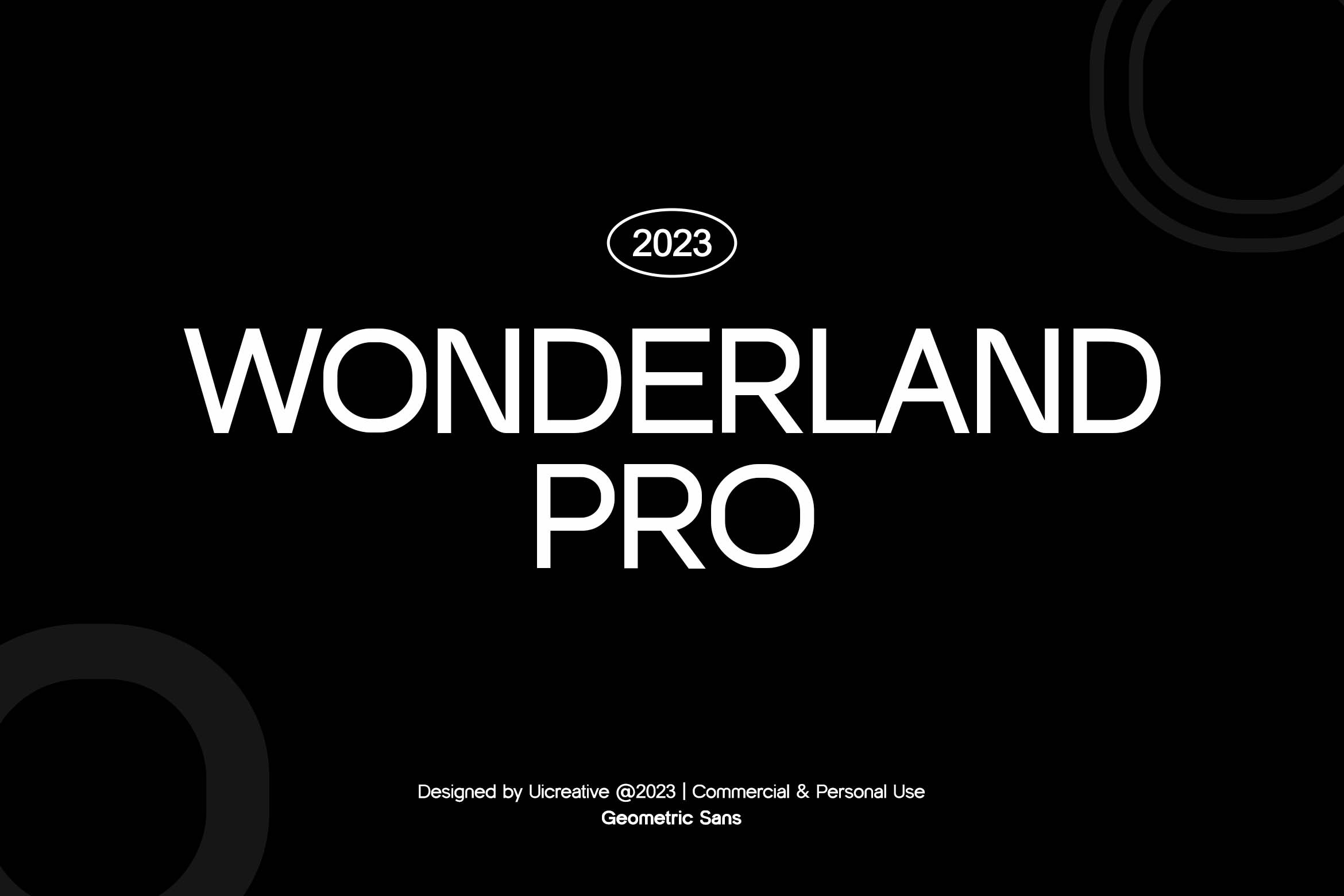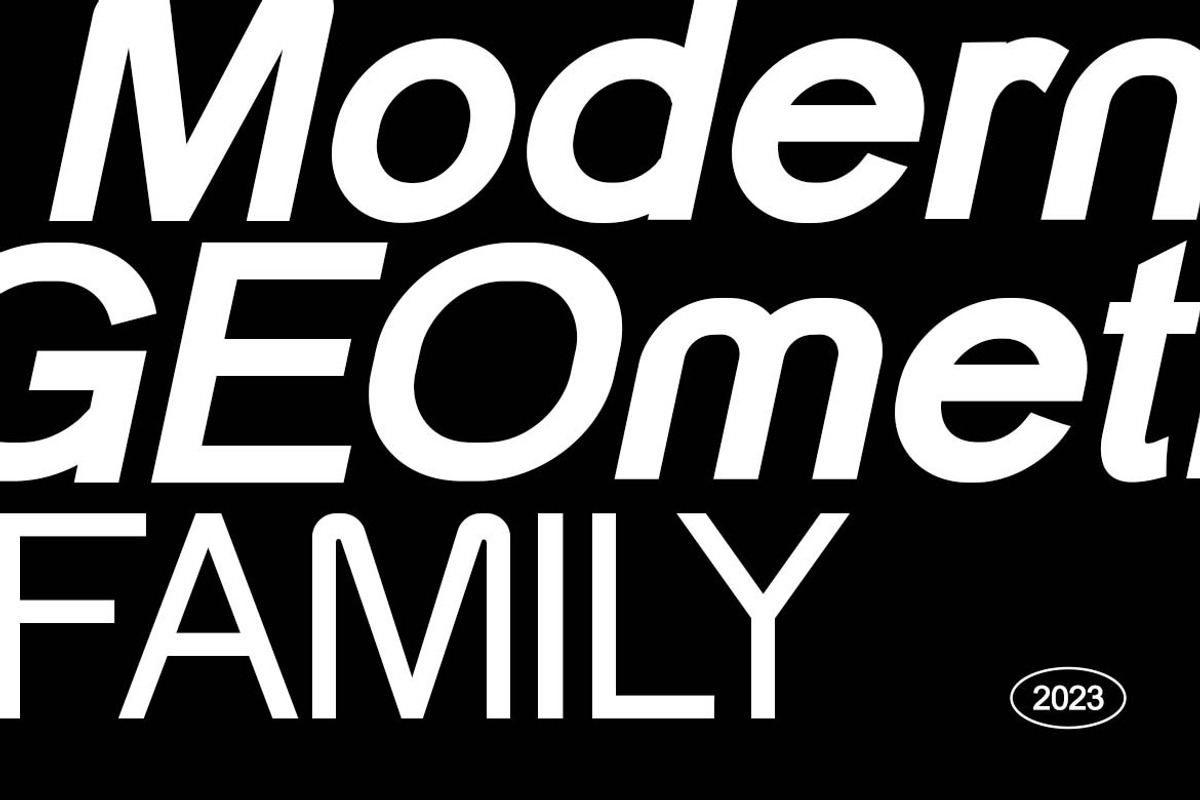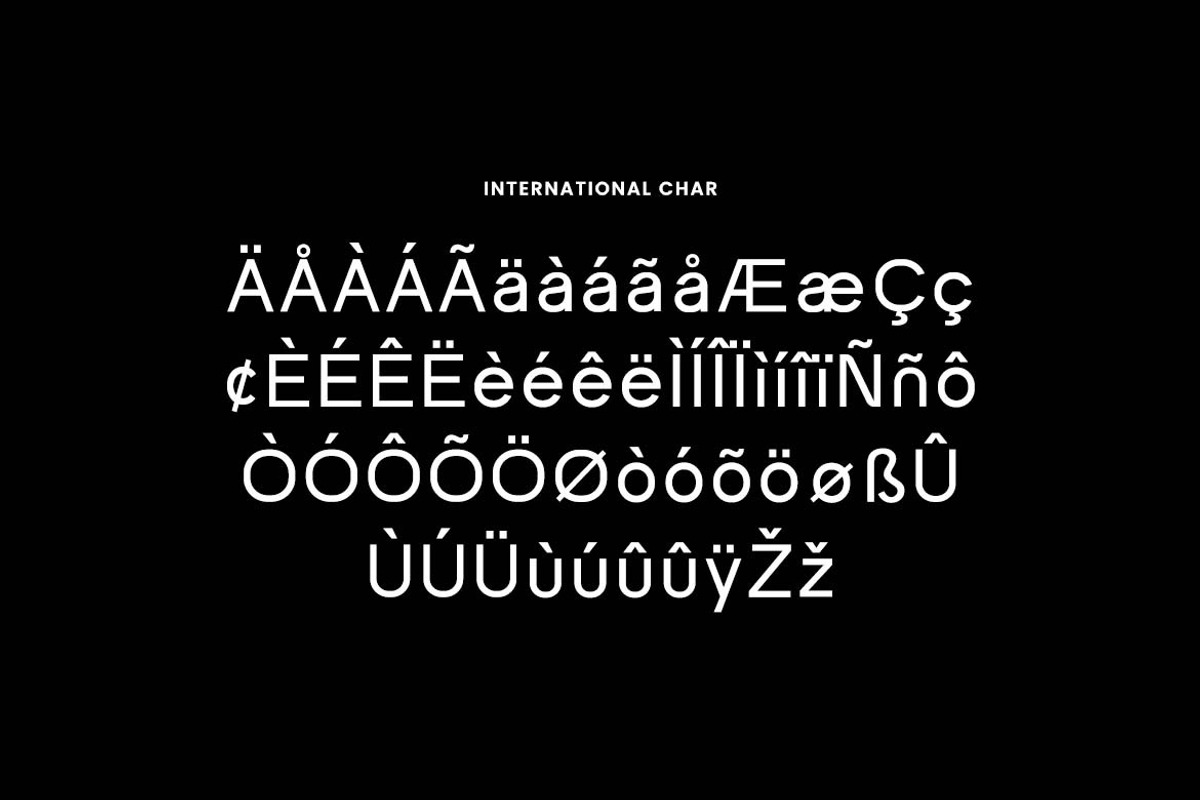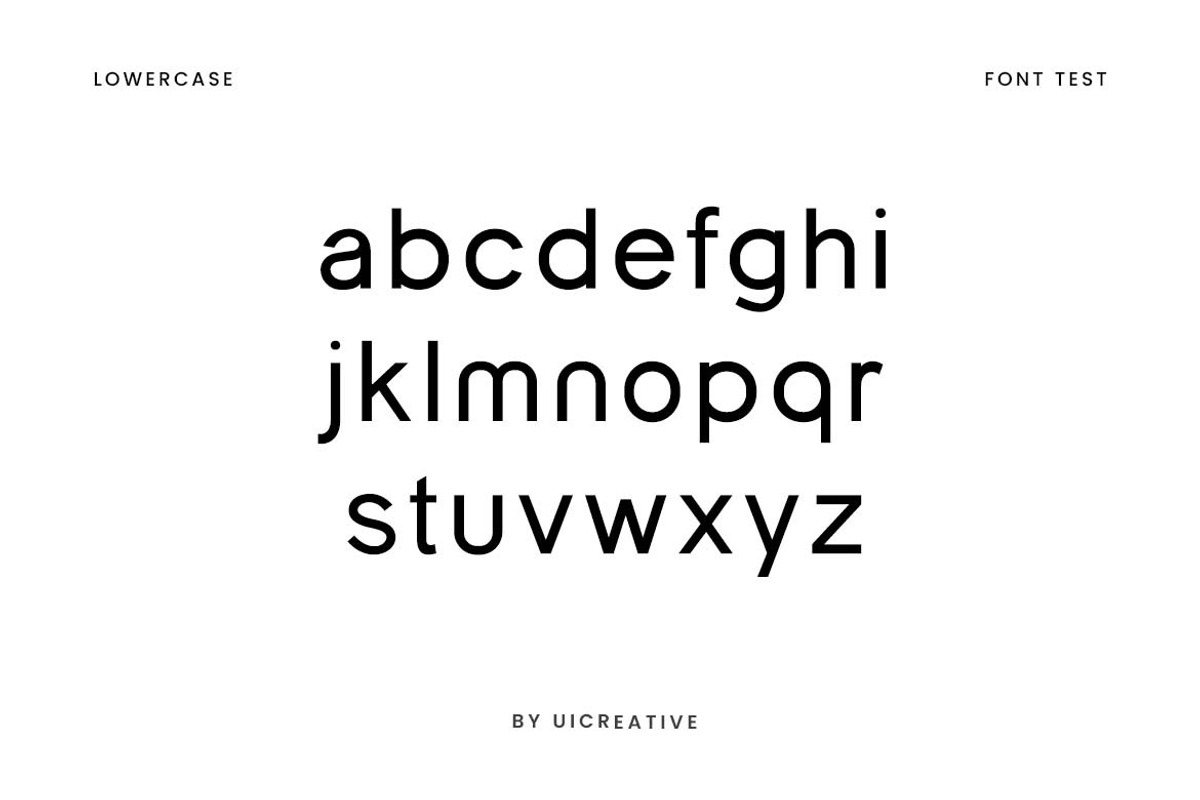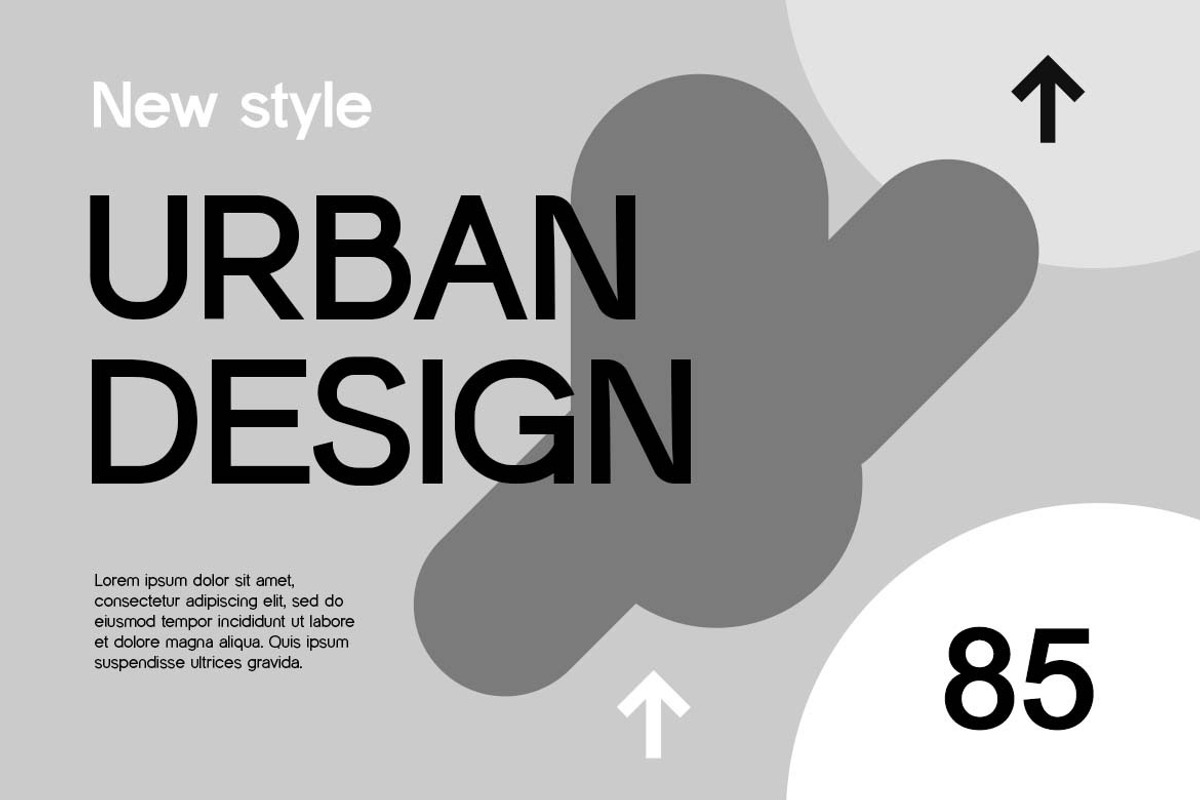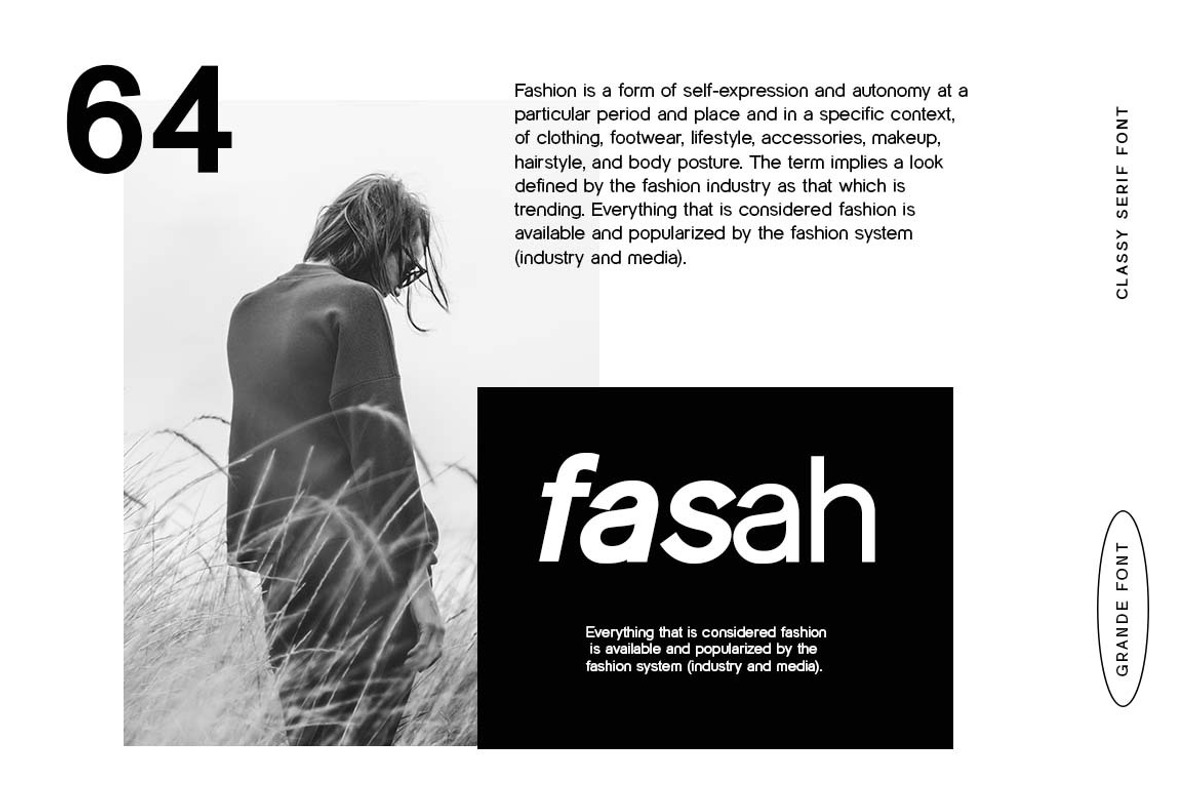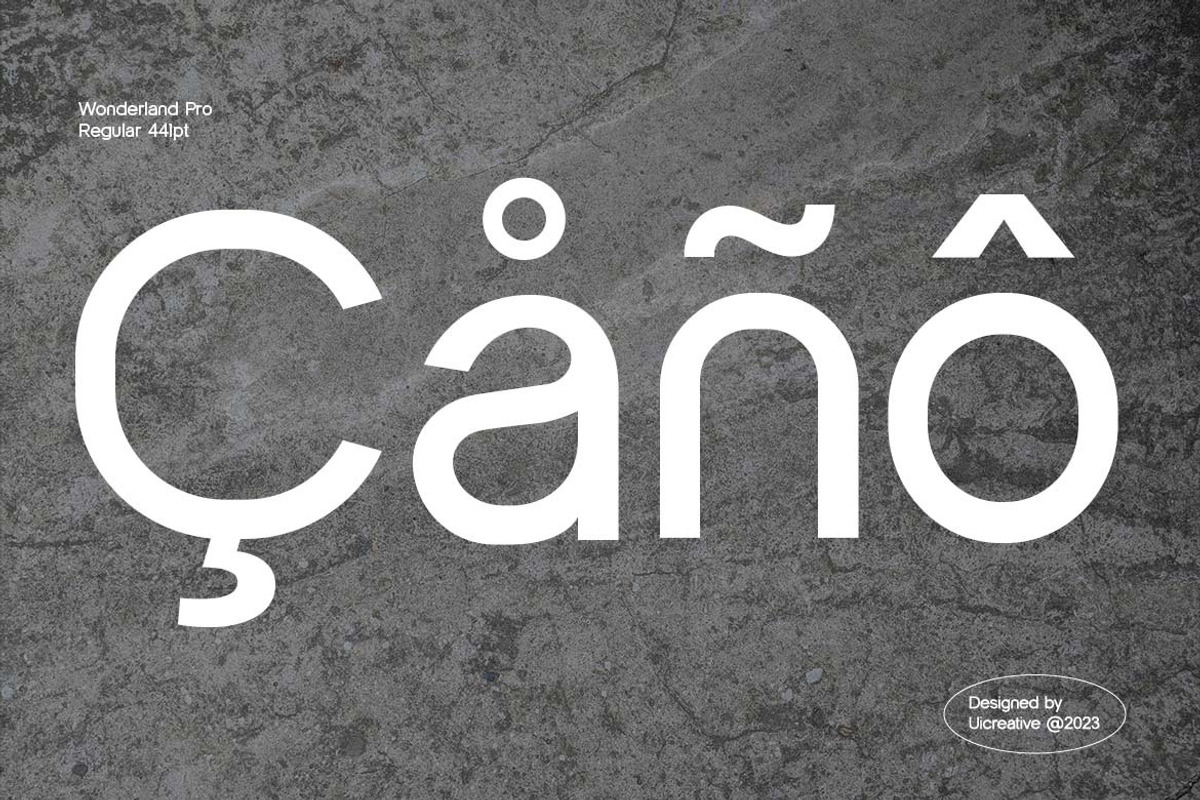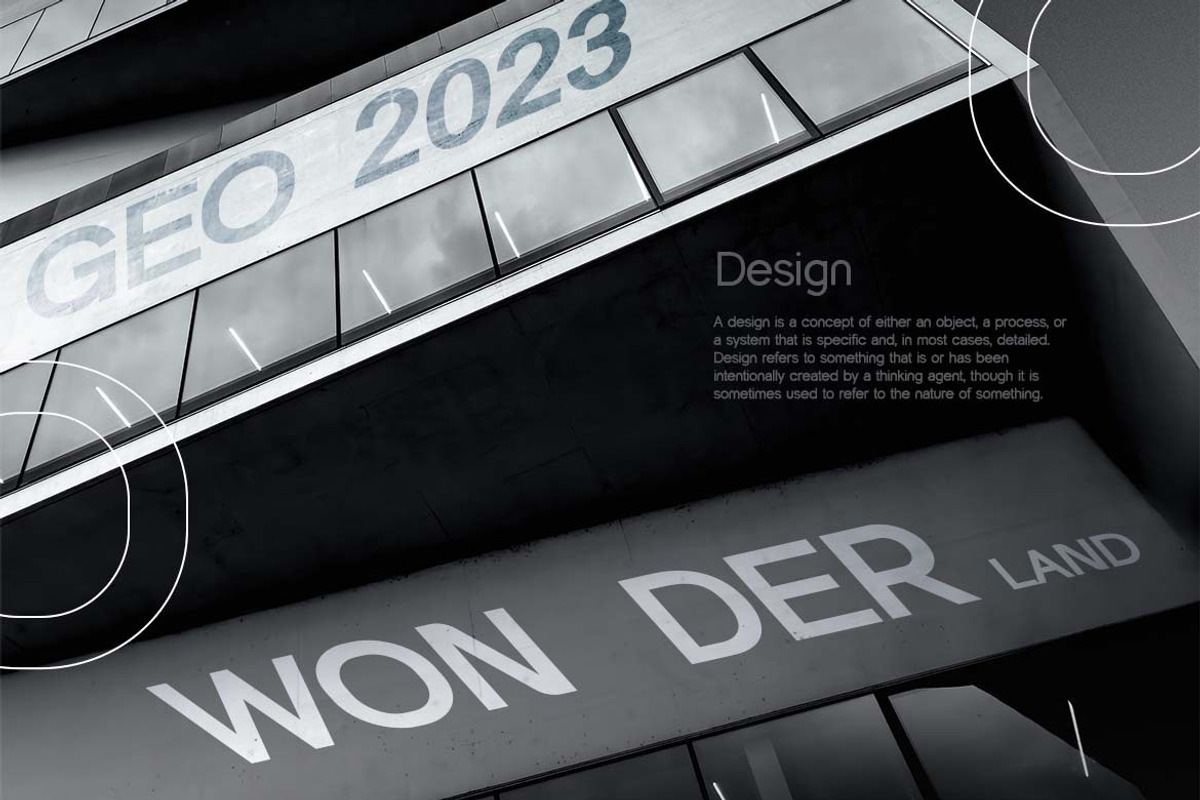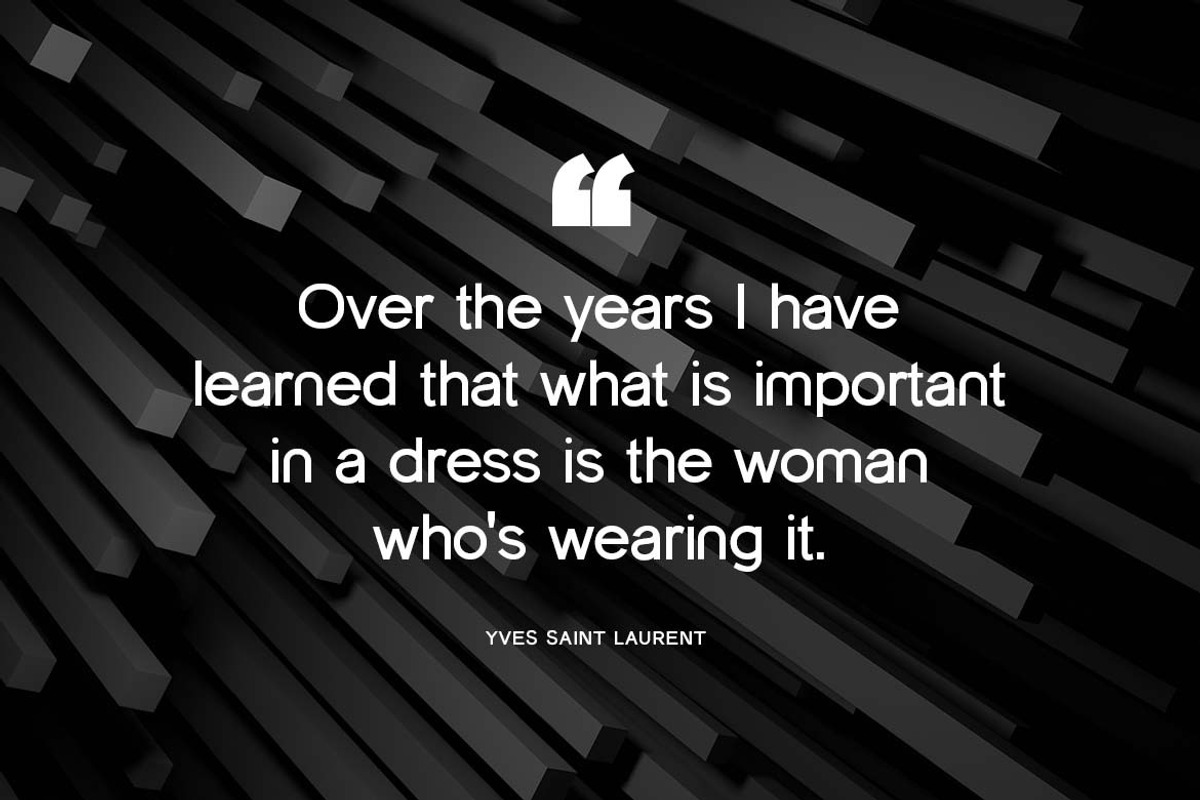
WONDERLANDPRO Modern Sans Serif Font
Introducing our new product the name is WONDERLANDPRO Modern Sans Serif Font. Modern Serif font that feels beautiful classy, elegant, and modern. This font is ideally suited for a wide variety of projects, such as signature, stationery, logo, wedding, typography quotes, magazine or book covers, website headers, clothing, branding, packaging design, and more. Also, fashion-related branding or editorial design displays both masculine and feminine qualities.